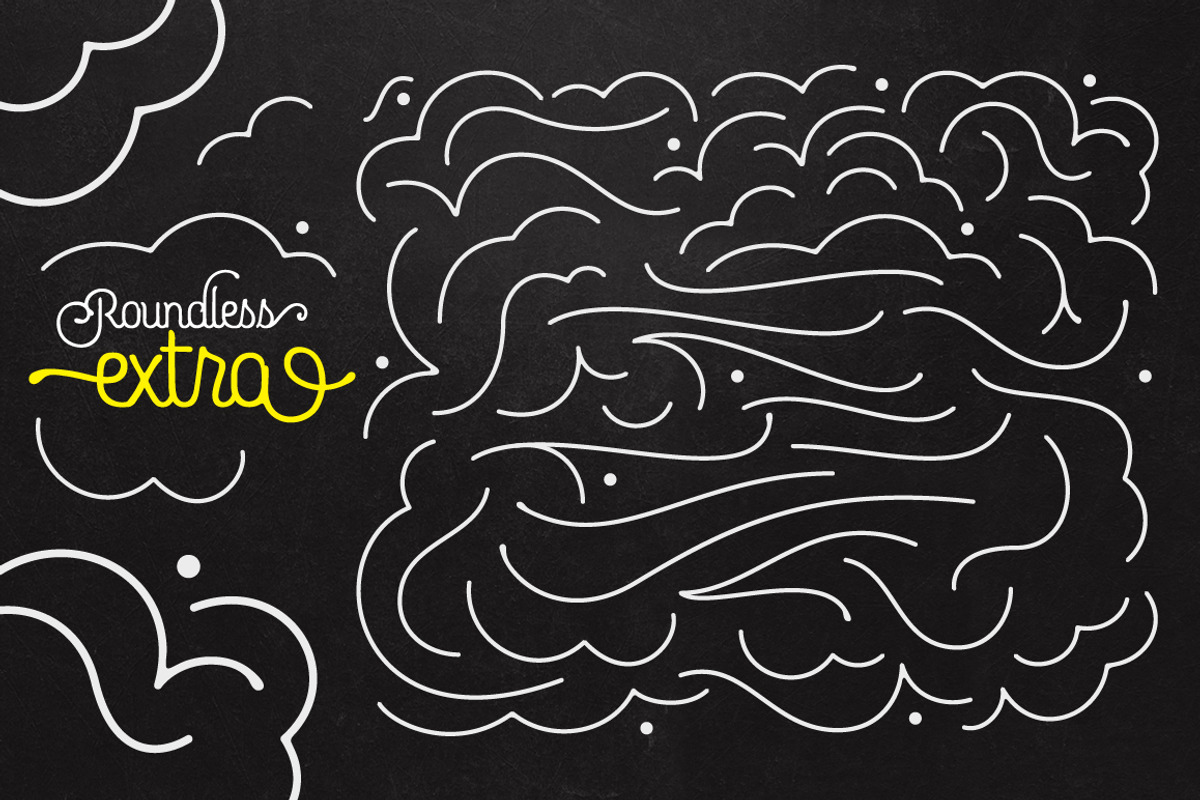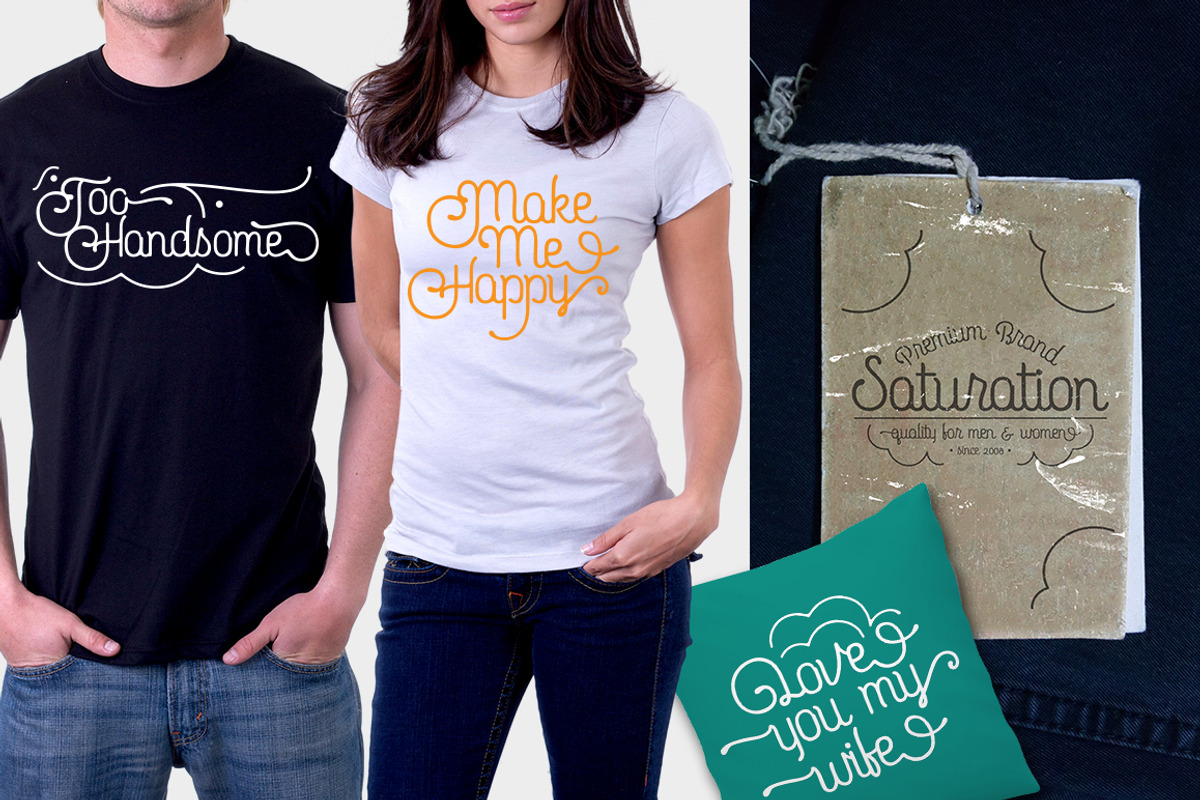
Roundless Script
INTRODUCING
Roundless Script is modern typeface. Many alternate in this font like swash auto connect with initial forms and terminal forms when you activate contextual alternates and stylistic alternates, you can be manual setting letter by letter what you want.
Featured Roundless Script
- Contextual Alternates
- Discretionary Ligatures
- Stylistic Sets